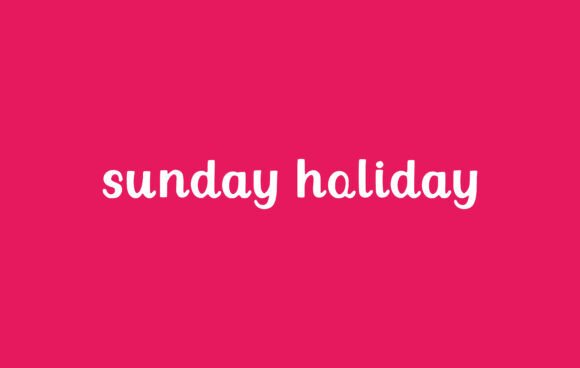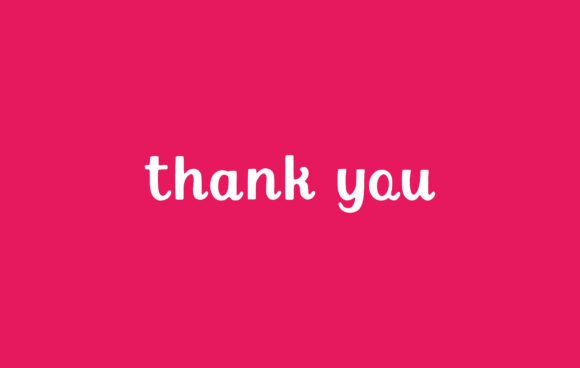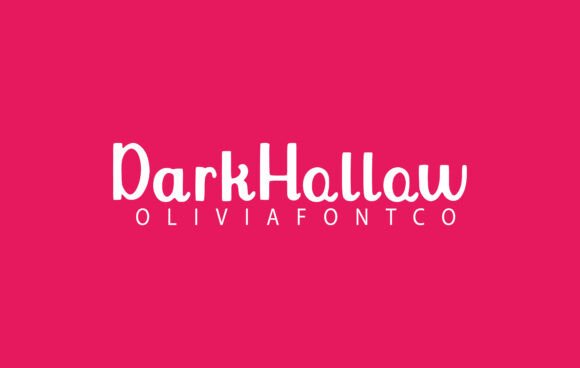
Discover the Charm of Darkhollow Font: Elevate Your Designs with a Romantic Touch
In the world of typography, a font can make or break a design. For creatives, finding the perfect font that captures the essence of their project can be a daunting task. However, if you’re looking for a font that exudes romance and sophistication, look no further than the Darkhollow Font. This authentic handwritten font is expertly designed to add a touch of elegance to your designs, making it a true favorite among designers and crafters.
What Makes Darkhollow Font Stand Out?
Darkhollow Font is a versatile and legible font that looks great as a title or body text. Its unique blend of classic and modern elements makes it perfect for a wide range of design projects. Whether you’re working on magazine headlines, social media graphics, branding materials, wedding invitations, or cards, this font is sure to impress. Its romantic touch adds a touch of whimsy and sophistication, making it ideal for designs that require a personal and emotional connection.
Key Features of Darkhollow Font
- Authentic Handwritten Style: Darkhollow Font boasts an authentic handwritten style that adds a personal touch to your designs.
- Romantic Touch: The font’s romantic touch makes it perfect for designs that require a touch of elegance and sophistication.
- Legible and Versatile: Darkhollow Font is highly legible and versatile, making it suitable for use as a title or body text.
- Wide Range of Applications: From magazine headlines to wedding invitations, this font is perfect for a wide range of design projects.
Why Designers and Crafters Love Darkhollow Font
Designers and crafters love Darkhollow Font for its unique blend of style and versatility. Here are just a few reasons why:
- Ease of Use: Darkhollow Font is easy to use and can be easily integrated into your design workflow.
- High-Quality Design: The font is expertly designed to deliver high-quality results that exceed your expectations.
- Flexibility: Darkhollow Font can be used for a wide range of design projects, making it a valuable addition to your font library.
- Emotional Connection: The font’s romantic touch helps create an emotional connection with your audience, making it perfect for designs that require a personal touch.
Tips for Using Darkhollow Font in Your Designs
To get the most out of Darkhollow Font, here are a few tips to keep in mind:
- Pair it with Other Fonts: Experiment with pairing Darkhollow Font with other fonts to create a unique and visually appealing design.
- Use it for Headlines and Titles: The font’s bold and elegant style makes it perfect for headlines and titles.
- Add a Personal Touch: Use Darkhollow Font to add a personal touch to your designs, making them more relatable and engaging.
- Experiment with Colors and Textures: Don’t be afraid to experiment with different colors and textures to add depth and interest to your designs.
In conclusion, Darkhollow Font is a versatile and elegant font that can elevate your designs to new heights. Its romantic touch, legibility, and versatility make it perfect for a wide range of design projects. Whether you’re a designer or crafter, this font is sure to become a favorite in your font library. So why wait? Discover the charm of Darkhollow Font today and take your designs to the next level!